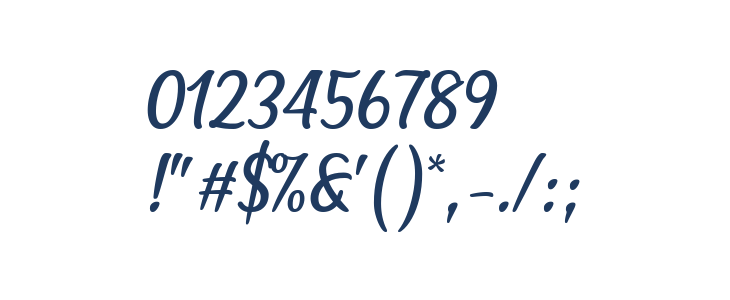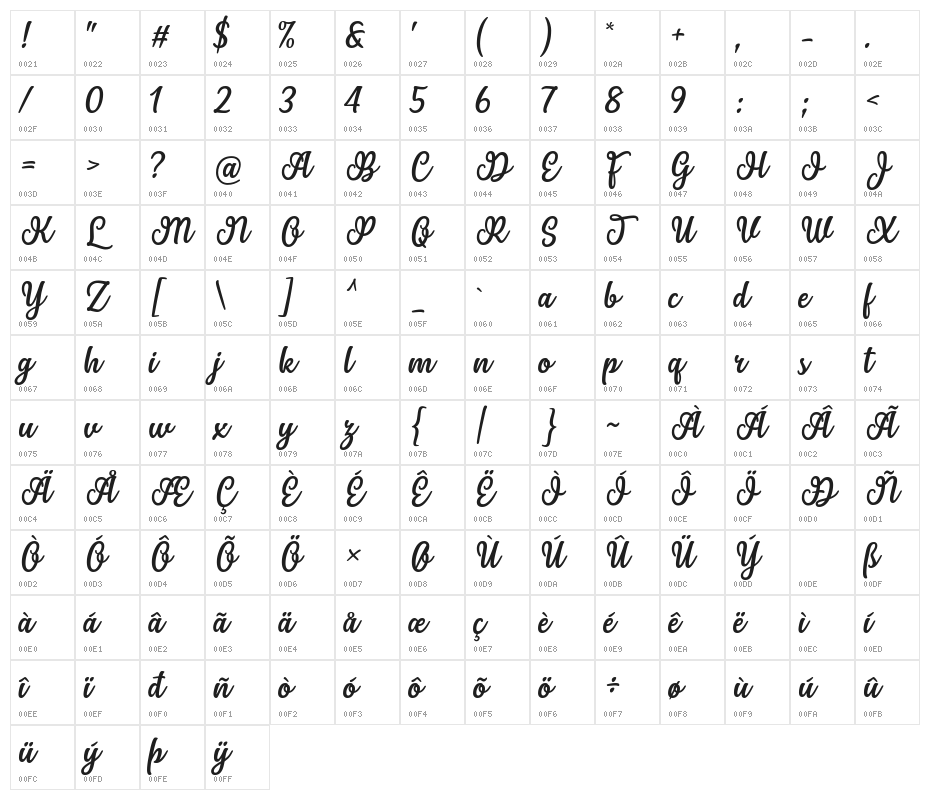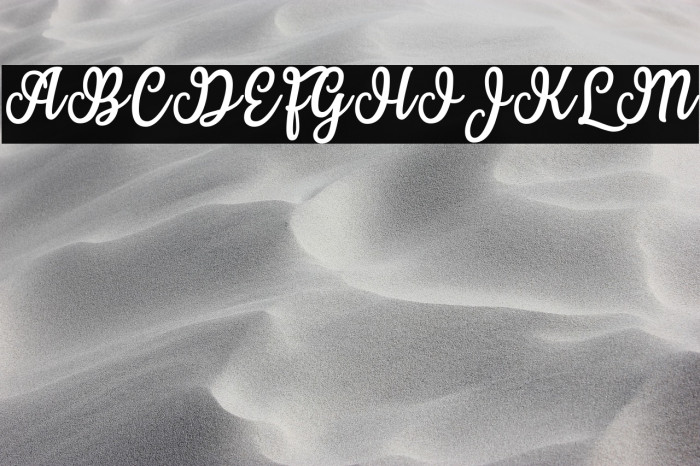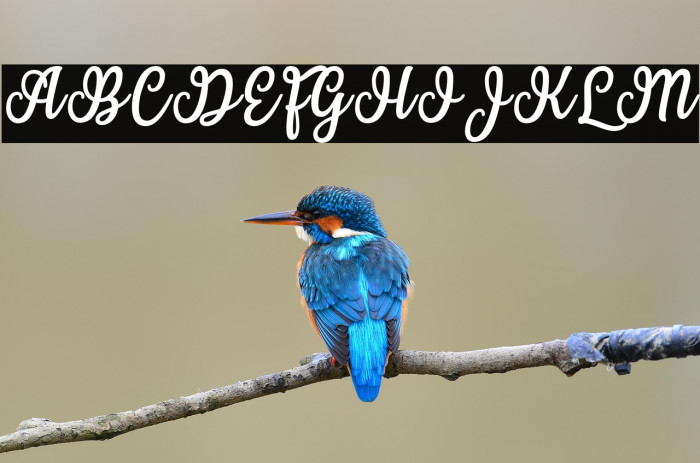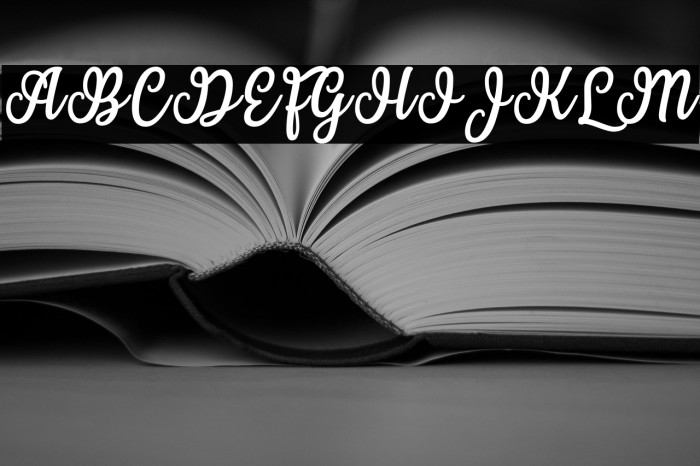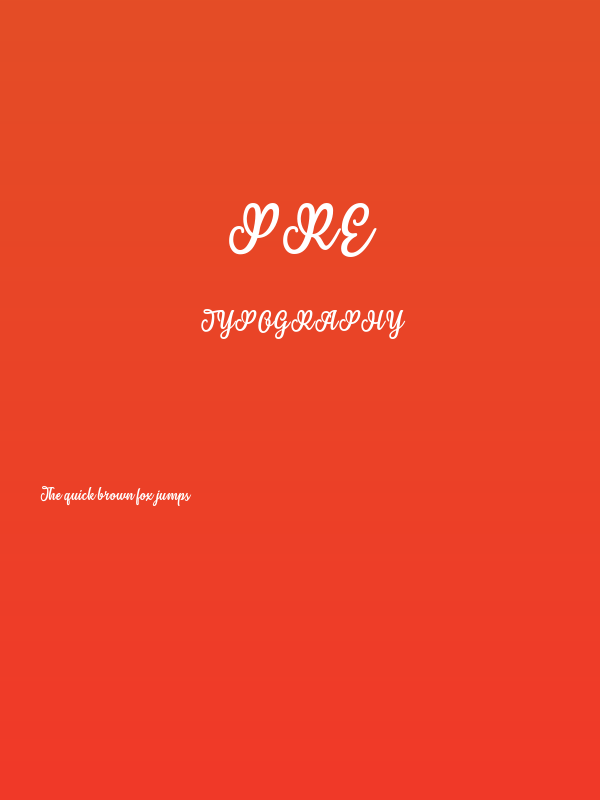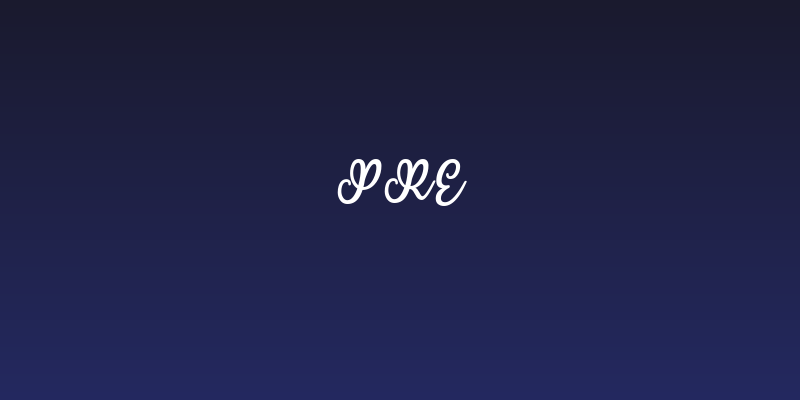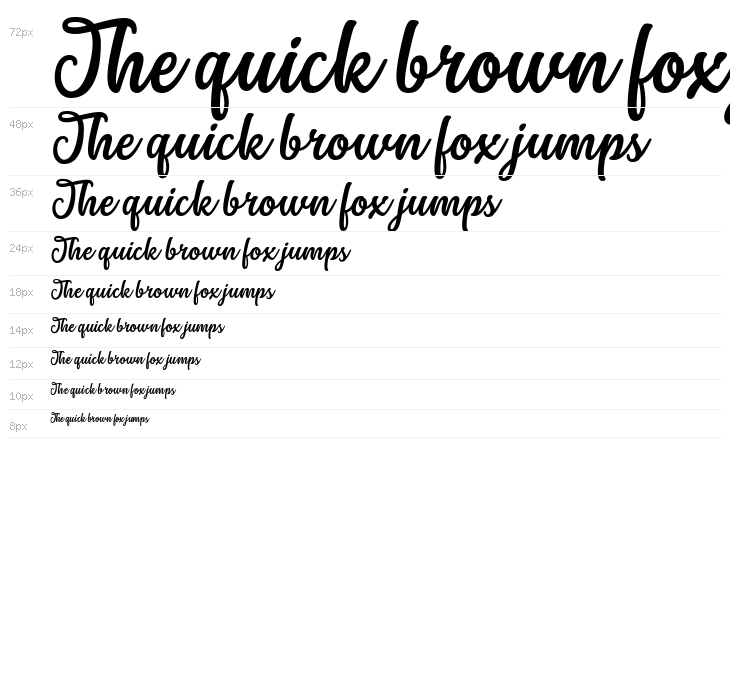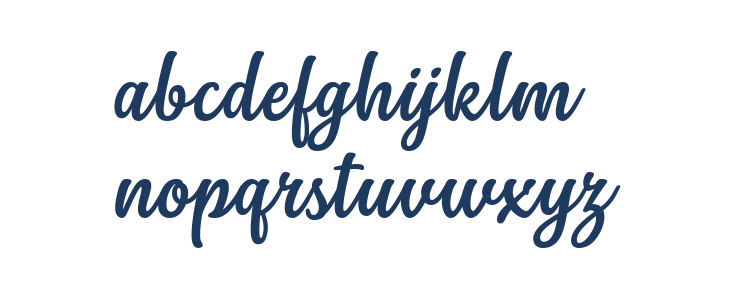
Pre Font
Pre Description
This font features a flowing, cursive style with smooth, rounded edges and a consistent stroke width that gives it a cohesive and elegant appearance. The uppercase letters are slightly more ornate, with loops and curves that add a touch of sophistication. The lowercase letters maintain a similar style, with a more compact and connected form, enhancing readability while retaining the script's fluidity. The numerals are clear and distinct, matching the overall aesthetic with gentle curves. Special characters are well-integrated, maintaining the font's elegant and cohesive look. This font is ideal for projects that require a personal, handwritten touch, while still being legible and stylish.
| Overall Style | Elegant |
| Use Case | Logos, Invitations, Greeting Cards |
| Proposed Projects | Ideal for wedding invitations, greeting cards, personal branding, and elegant packaging design. |